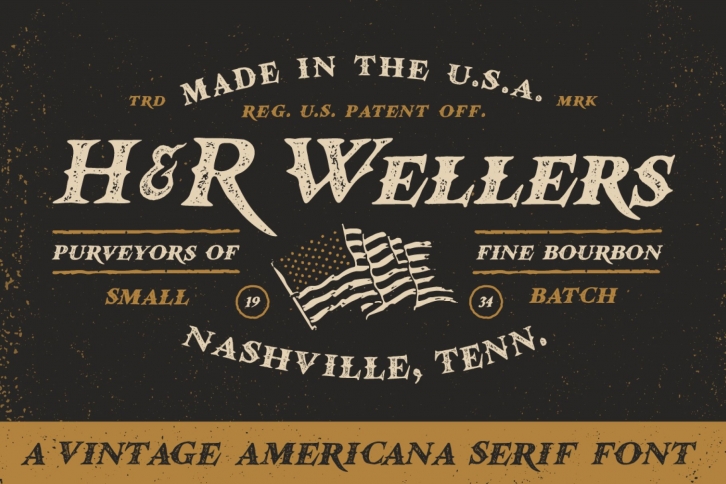
H&R Wellers is a font inspired by vintage Americana typography. The subtle texture gives this font a gritty handdrawn feel (because perfect computerized lines are icky). Includes upper-case characters, lower-case characters, numbers, a super neat ampersand, and various punctuation. Also comes with a couple fully-editable logo badges to help get you started in all of your designing endevors!
Perfect for product labels, logos, t-shirts, posters, or even write up a lengthy fax in Microsoft Word (is faxing still a thing?). Hope you dig it!